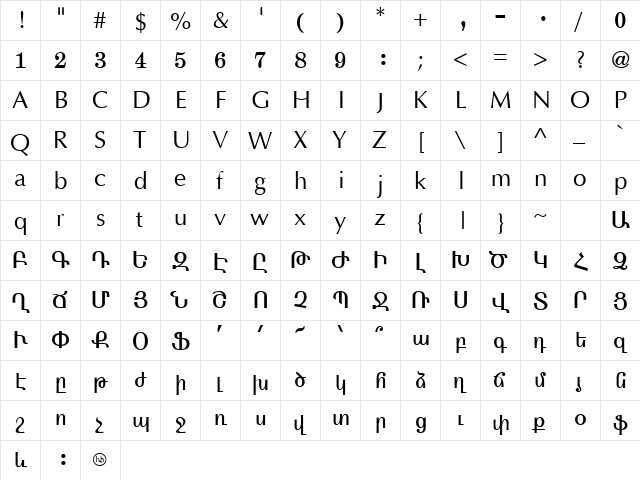
ArmenianArtiSSK Regular
Design Context for ArmenianArtiSSK Typeface
ArmenianArtiSSK offers clean, dependable letterforms without strong stylistic allegiance, making it a practical choice for designers who need flexibility.